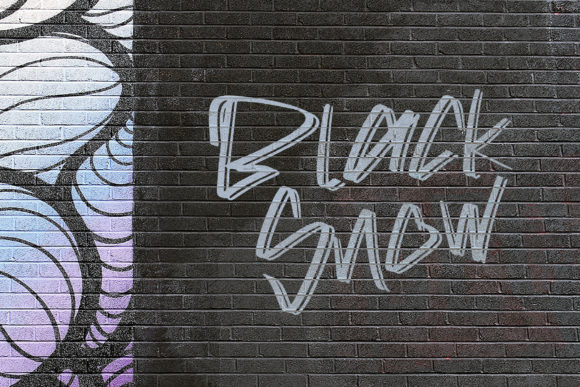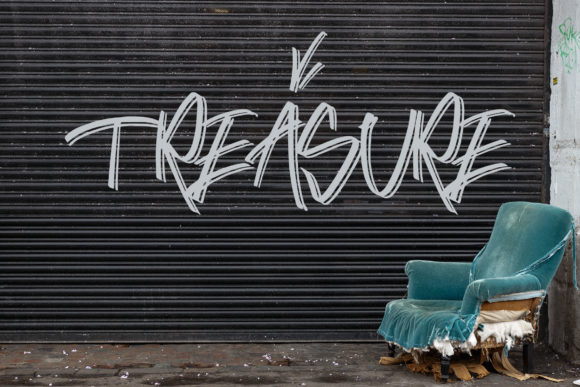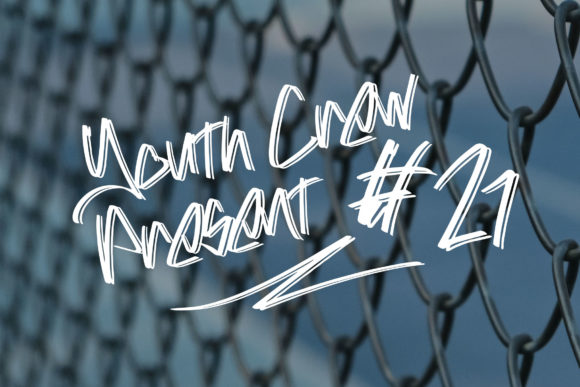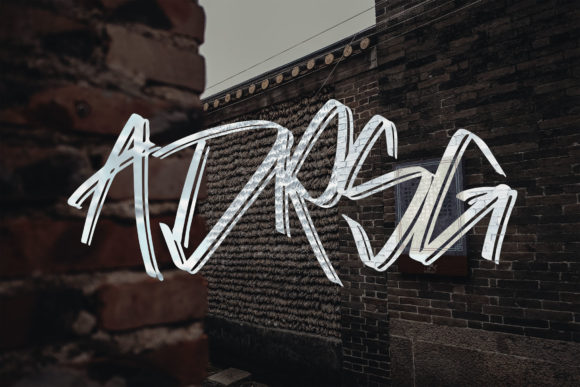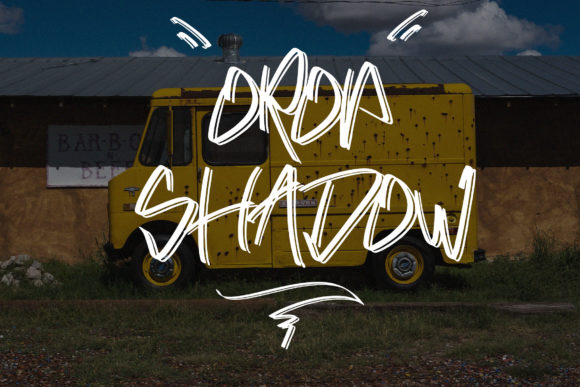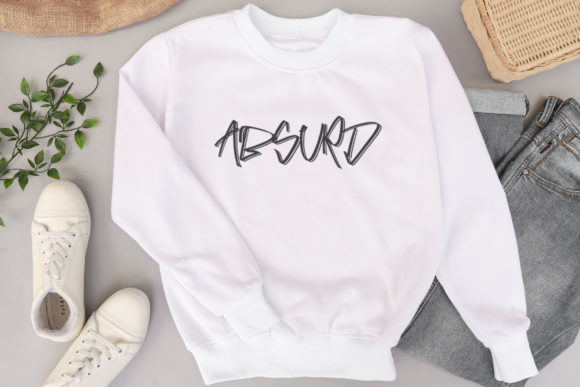
Dropress Font: The Ultimate Graffiti-Style Display Font for Creative Projects
Are you tired of using the same old fonts for your creative projects? Look no further than Dropress Font, a cool graffiti-style display font that’s sure to take your designs to the next level. With its incredibly realistic and unique look, Dropress Font is perfect for fashion magazines, t-shirt designs, branding, graffiti logotypes, and many more!
What is Dropress Font?
Dropress Font is a specially designed font that mimics the look of graffiti art. Its bold, edgy, and vibrant style makes it perfect for designers and crafters who want to add a touch of urban flair to their projects. Whether you’re working on a fashion magazine, a t-shirt design, or a branding project, Dropress Font is sure to make a statement.
Key Features of Dropress Font
- Realistic Graffiti Look: Dropress Font has a incredibly realistic graffiti-style look that’s sure to impress. Its unique and bold design makes it perfect for creating eye-catching headlines and titles.
- Versatile: Dropress Font is versatile and can be used for a wide range of creative projects, from fashion magazines to t-shirt designs, branding, and more.
- Unique and Exclusive: Dropress Font is a unique and exclusive font that’s sure to set your designs apart from the rest. Its bold and edgy style makes it perfect for designers who want to create something truly original.
Uses of Dropress Font
Dropress Font is perfect for a wide range of creative projects, including:
- Fashion Magazines: Use Dropress Font to create eye-catching headlines and titles for your fashion magazine. Its bold and edgy style makes it perfect for showcasing the latest fashion trends.
- T-Shirt Designs: Dropress Font is perfect for t-shirt designs. Its bold and vibrant style makes it perfect for creating eye-catching designs that will stand out on any t-shirt.
- Branding: Use Dropress Font to create a unique and memorable brand identity. Its bold and edgy style makes it perfect for creating logos and typography that will set your brand apart from the rest.
- Graffiti Logotypes: Dropress Font is perfect for creating graffiti-style logotypes. Its bold and vibrant style makes it perfect for creating eye-catching logos that will stand out on any surface.
Why Choose Dropress Font?
There are many fonts available online, but Dropress Font stands out from the rest. Here are just a few reasons why you should choose Dropress Font for your next creative project:
- Unique and Exclusive: Dropress Font is a unique and exclusive font that’s sure to set your designs apart from the rest.
- High-Quality Design: Dropress Font has a high-quality design that’s perfect for professional designers and crafters.
In conclusion, Dropress Font is a cool graffiti-style display font that’s perfect for creative projects. Its incredibly realistic and unique look makes it perfect for fashion magazines, t-shirt designs, branding, graffiti logotypes, and many more! With its bold and edgy style, Dropress Font is sure to make a statement and set your designs apart from the rest.